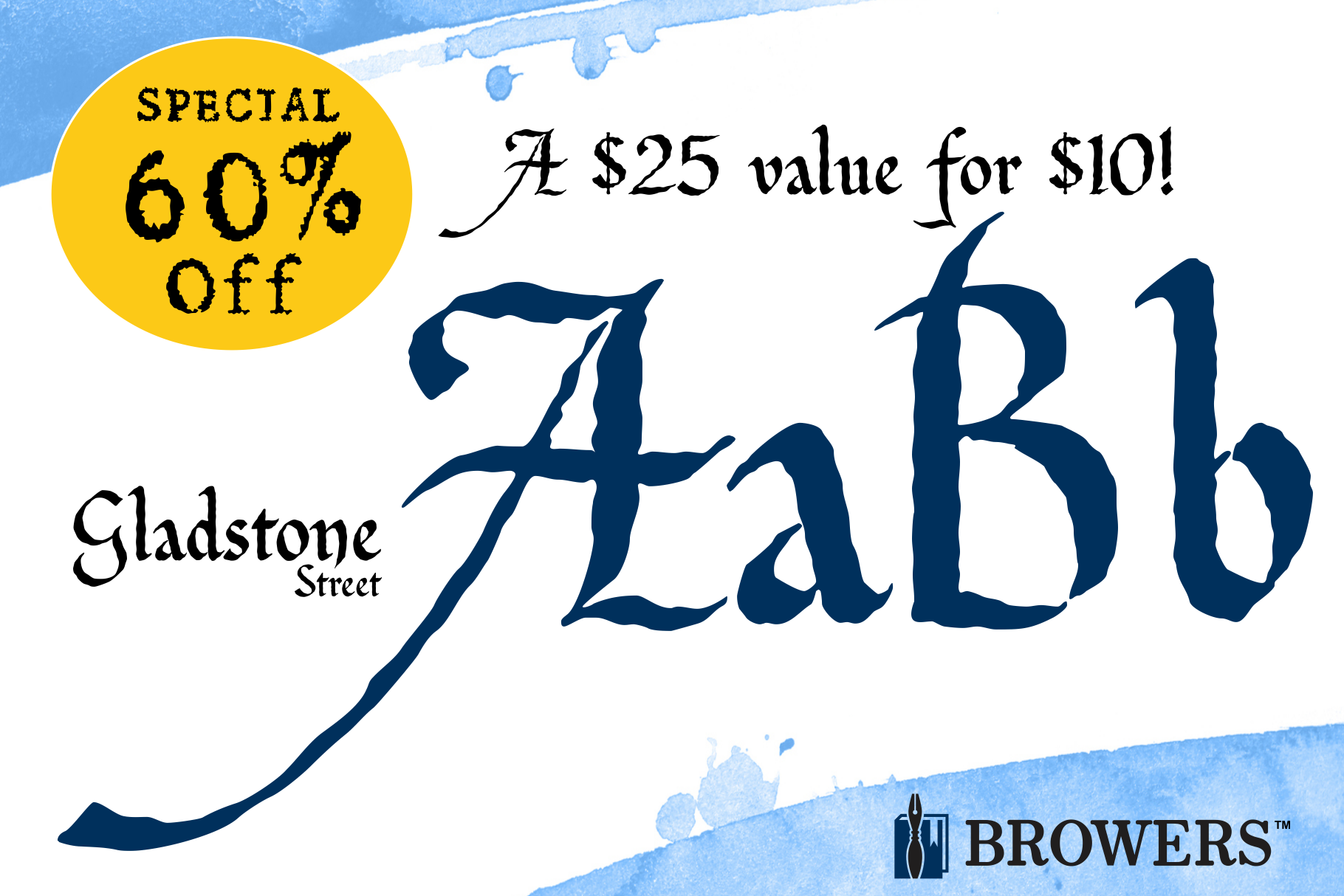
Gladstone Street Font - 60% Off
Gladstone Street is a handmade, script font featuring subtly distressed letterforms designed to emulate the look and feel of letterpress printed type.